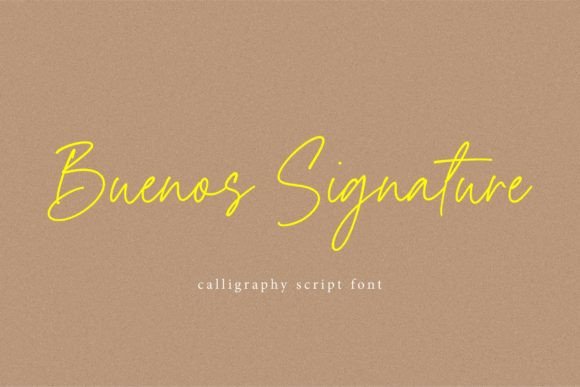
I still remember the frustration of working on a project, hours spent crafting the perfect design, only to realize that the font I was using just wasn’t cutting it. The client wanted something modern, yet timeless; elegant, yet effortless. I scoured the internet, tried font after font, but nothing seemed quite right. That was until I stumbled upon **Buenos Signature**.
A Beautiful Monoline Script
Buenos Signature is a stunning monoline script that’s clean, elegant, and perfect for a range of design projects. With its smooth, effortless lines and understated sophistication, this font is the perfect choice for those who want a modern look that’s still timeless in its appeal. Crafted with precision and care, Buenos Signature is incredibly versatile and can be used for a range of design projects, including logos, branding, invitations, packaging, and more.
- ✨ **Clean and Elegant Lines**: Buenos Signature has a beautiful, monoline quality that’s both modern and sophisticated.
- ✅ **Versatile**: This font can be used for a wide range of design projects, from logos and branding to invitations and packaging.
- 💫 **Effortless**: The smooth, flowing lines of Buenos Signature give it an effortless, elegant feel that’s perfect for designs that need to convey a sense of sophistication.
While Buenos Signature is an amazing font, there are a few things to keep in mind. ⚠️ Some users have noted that the font can be a bit tricky to read at very small sizes, so it’s best to use it for headlines or titles rather than body text. 🤔 Additionally, while the font is generally very flexible, some of the more intricate glyphs may not display perfectly on all devices or platforms.
The Story Behind Buenos Signature
Buenos Signature was designed by a team of skilled typographers who wanted to create a font that was both modern and timeless. With its clean, elegant lines and effortless sophistication, Buenos Signature is the perfect choice for designers who want to create beautiful, effective designs. The designers behind Buenos Signature drew inspiration from a range of sources, including classic typography, modern design trends, and the beauty of everyday language.
Q: What is Buenos Signature?
A: Buenos Signature is a beautiful monoline script font that’s clean, elegant, and perfect for a range of design projects.
Q: Is Buenos Signature easy to read?
A: Yes, Buenos Signature is generally very easy to read, especially at larger sizes. However, it may be a bit tricky to read at very small sizes, so it’s best to use it for headlines or titles rather than body text.